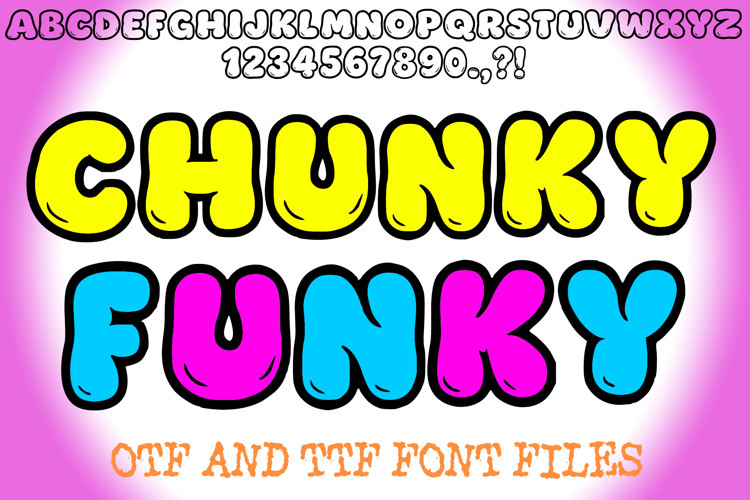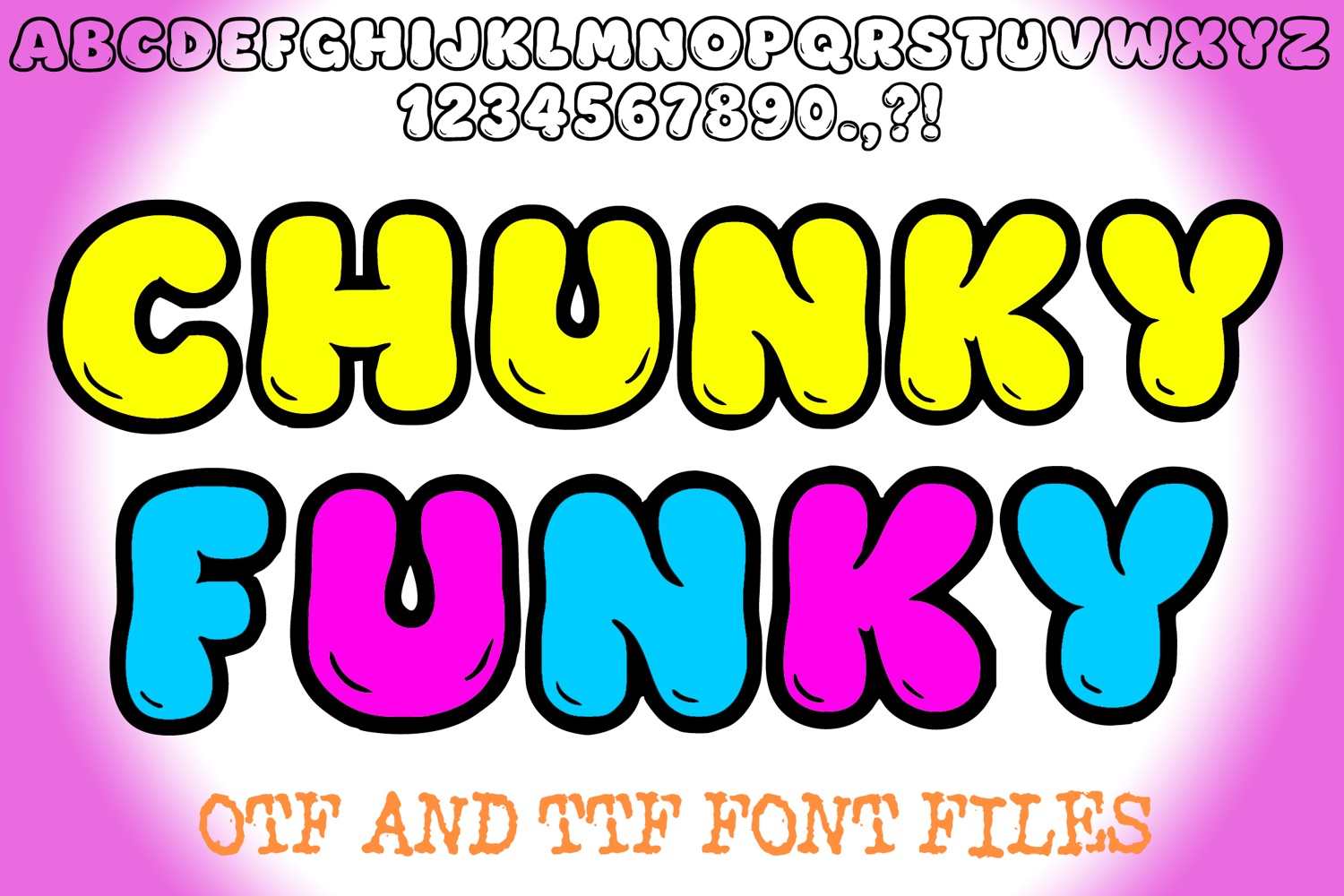
Chunky Funky Alphabet Lettering ABC Fat Text Font OTF
A chubby style font where you can create your own words and colour them to your vision!
Chunky Funky By Squeev Creative